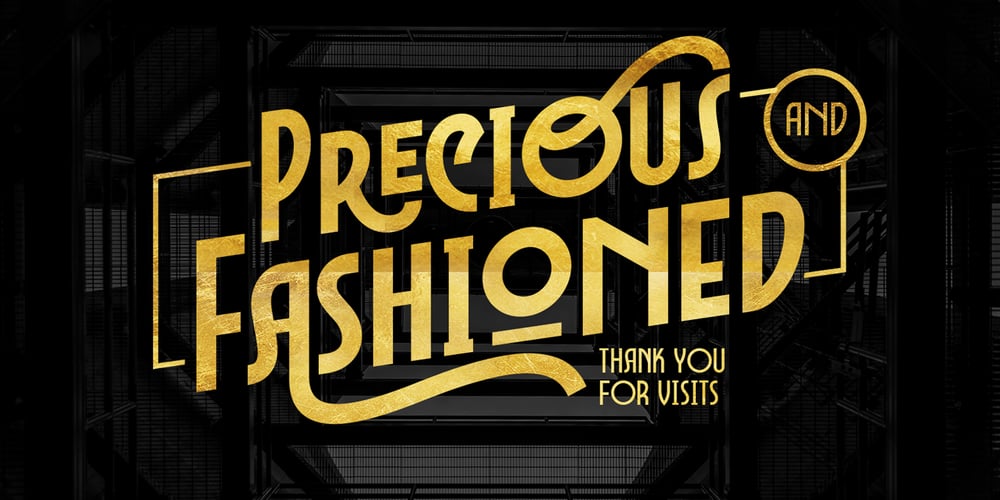
Marcheile
Marcheile font
Marcheile Font Family was designed by Ahmad Ramzi Fahruddin and published by Arterfak Project. Marcheile contains 2 styles and family package options. Marcheile is a display font, inspired by Gatsby & Vintage looks. The All-Caps font which comes from a combination of art deco and retro style. Luxury shapes, clean & solid that very possible to apply in many design project. Marcheile also has some OpenType features to gives you many alternatives in your creative process. There’s some ligatures, many alternates, and 18 accents. Great choice for your headline, editorial, logotype, quotes, typography and more!